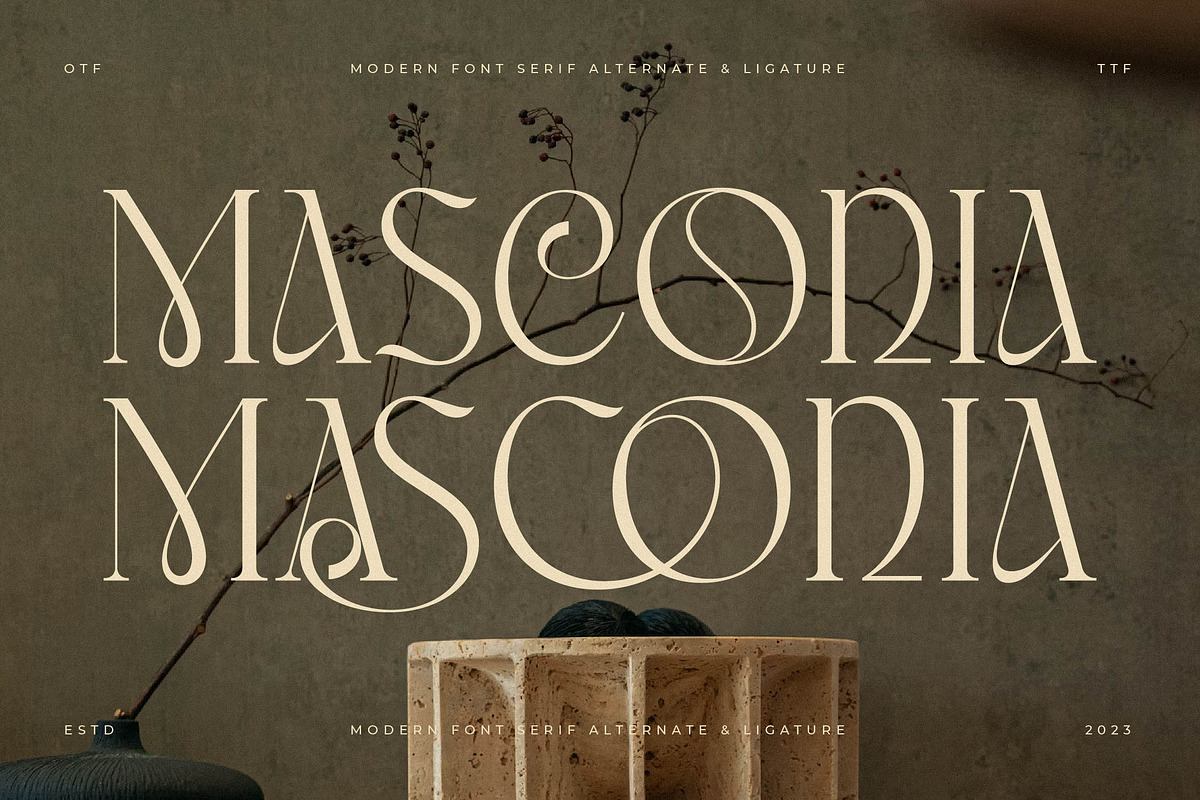
Masconia Modern Serif Font Free Download is a sleek and elegant typeface that blends classic serif sophistication with a contemporary edge. With its high contrast strokes, refined curves, and stylish letterforms, Masconia is perfect for luxury branding, editorial design, wedding invitations, packaging, and fashion-forward projects.
This modern serif font stands out in headlines while remaining highly readable in longer text, offering both beauty and versatility. Whether you’re creating a chic logo or a magazine layout, Masconia adds a polished and professional feel.